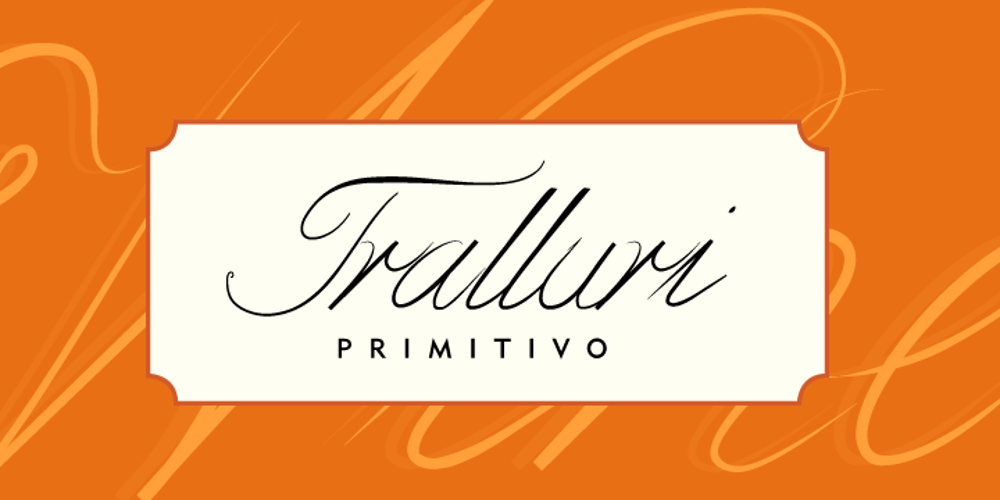
Bluebird Font Family was designed by Jennifer DeAngelis Gunn and published by J. DeAngelis Design. Bluebird contains 2 styles and family package options. Bluebird is a spring font I designed from a vintage letter I saw in the NYC Digital Library.